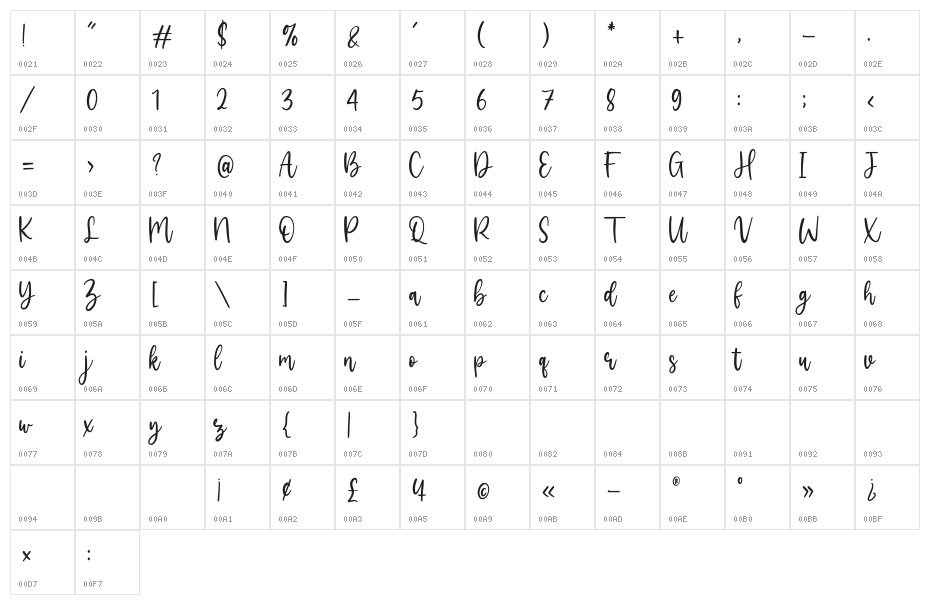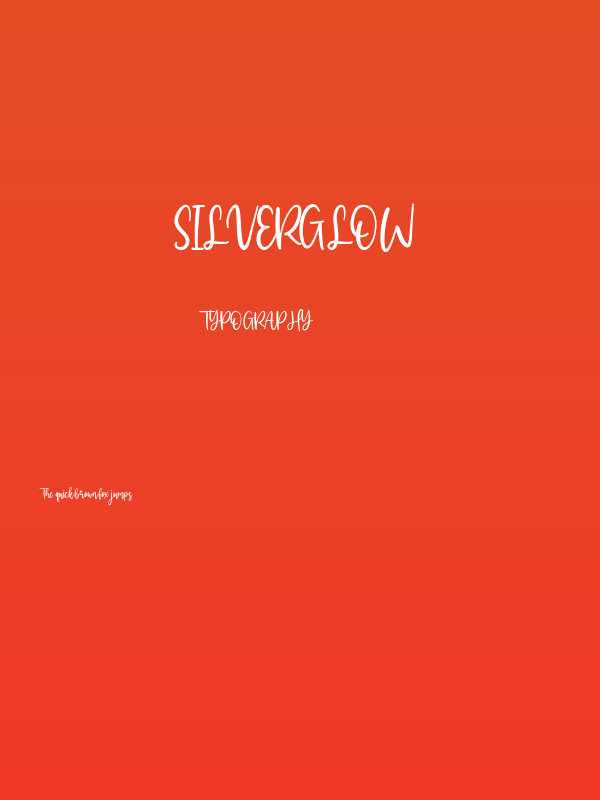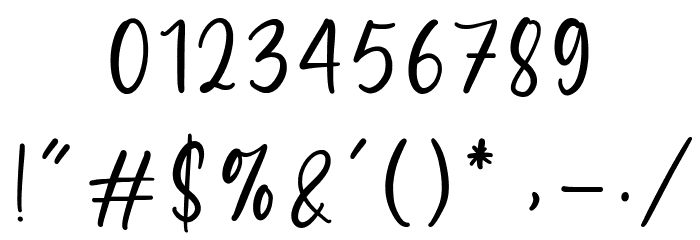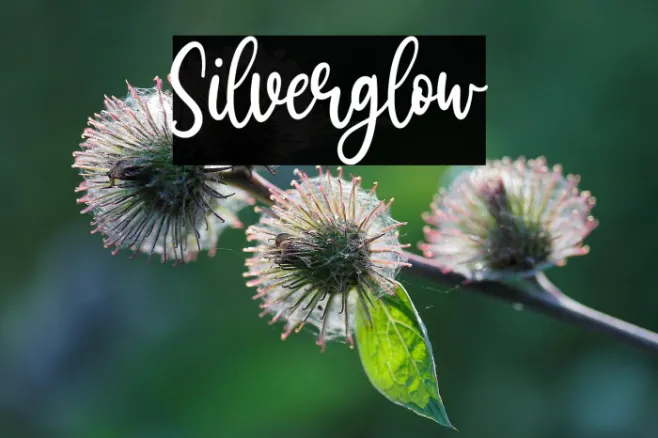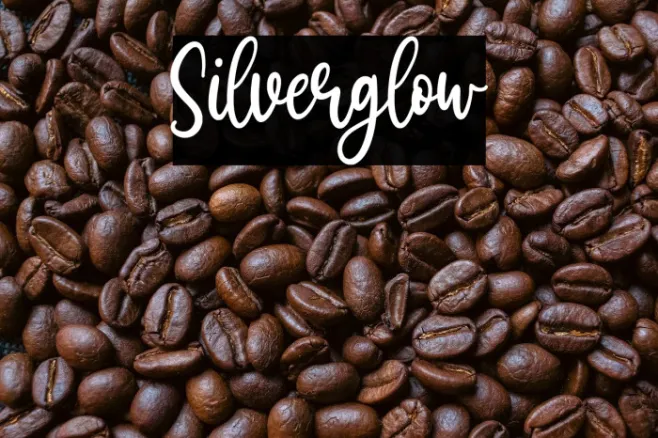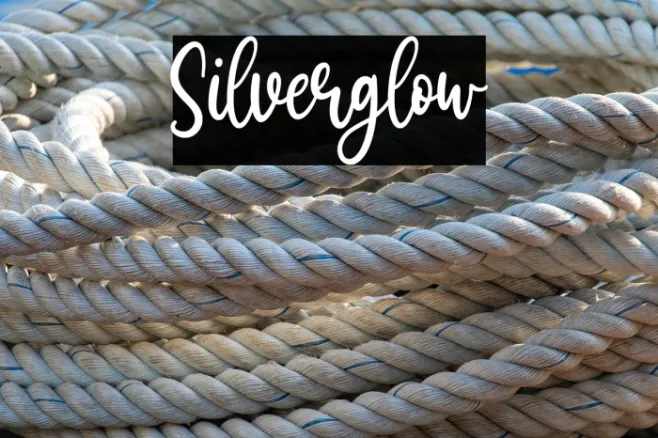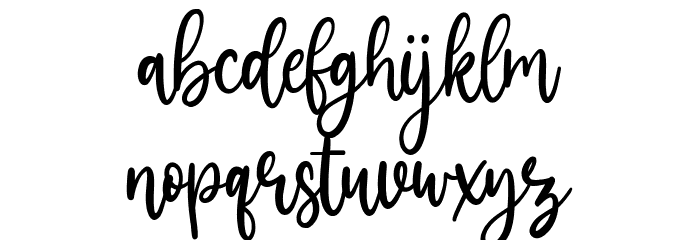
Silverglow Font
Silverglow Description
This font features a lively and flowing script style, characterized by its smooth, cursive strokes and elegant loops. The uppercase letters are tall and slightly slanted, adding a sense of movement and grace. The lowercase letters maintain a consistent flow, with some characters extending below the baseline, enhancing its handwritten appeal. The numbers are clear and legible, matching the overall style with rounded edges and a slight slant. Special characters are thoughtfully designed to complement the alphabet, maintaining the font's cohesive look. This font exudes a sense of creativity and personal touch, making it ideal for projects that require a personal or artistic flair.